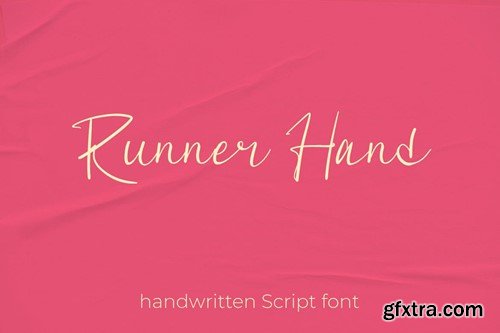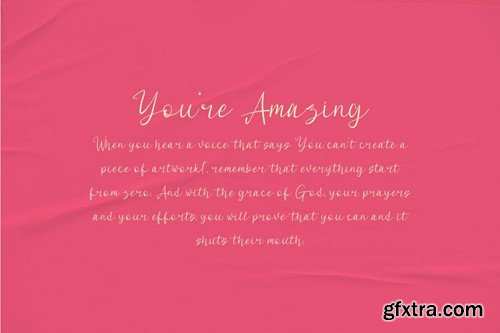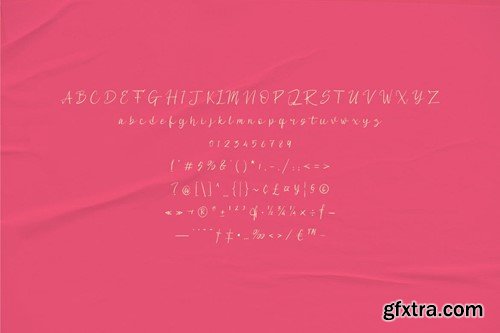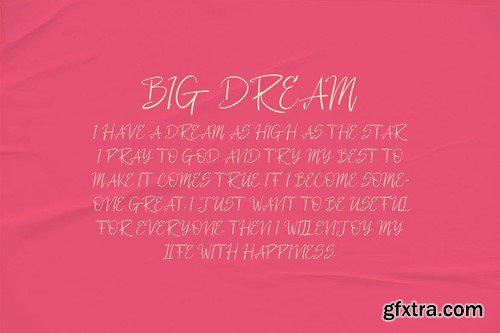
跑步者手稿 - 手写书法字体 8VGB2SN
Runner Hand - Handwritten Script Font
Dive into the elegant and whimsical world of Runner Hand, a beautifully crafted handwritten script font that embodies charm, personality, and versatility. Designed with meticulous attention to detail, this font offers a seamless blend of classic elegance and modern flair, making it a perfect choice for various design projects. The zip file is include: Thank You!